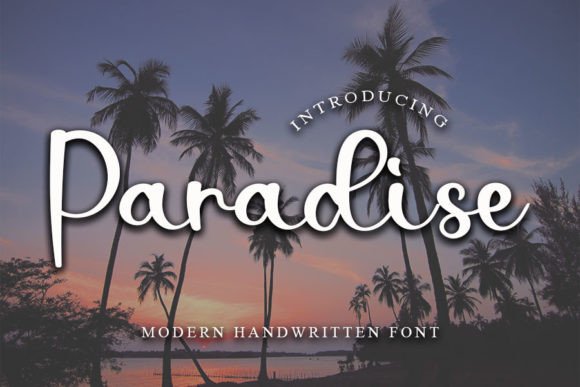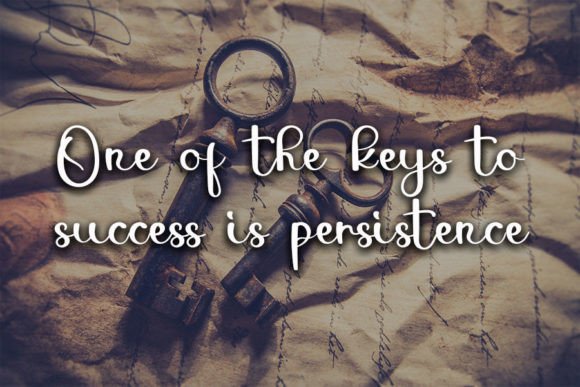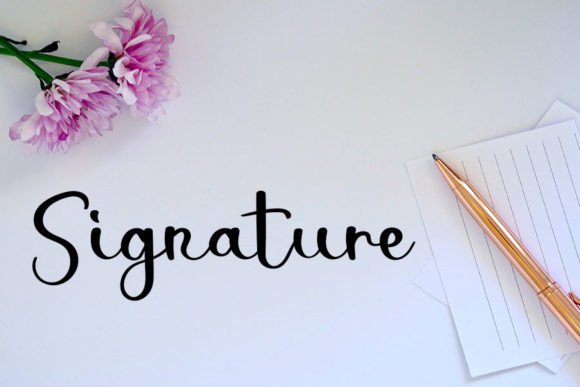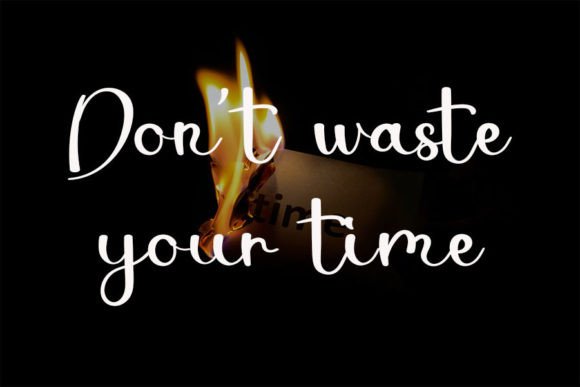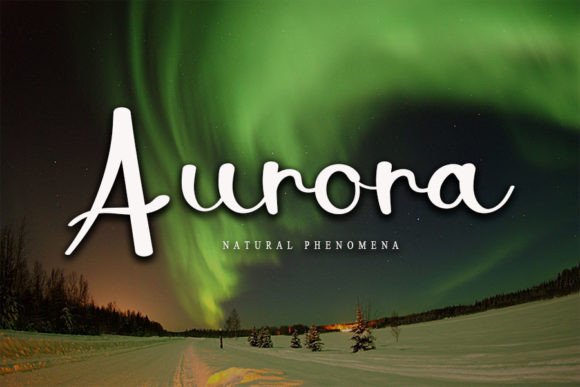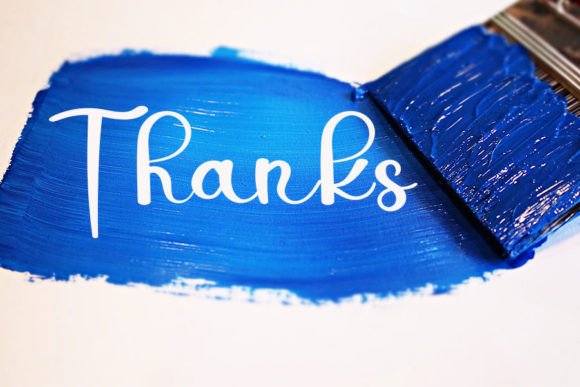
Paradise Font
About Paradise Font
“Paradise” is a colorful handwritten font that combines elegance with a touch of playfulness. This font is an excellent choice for various design projects, including logos, branding, social media posts, and crafty DIY endeavors. Its clean and slightly quirky design adds a unique and eye-catching quality to your creative work.
One of the standout features of “Paradise” is its ability to convey both elegance and a sense of personality. The handwritten style of the font adds a personal and authentic feel to your text, making it ideal for projects that aim to create a visually appealing and approachable impression.
This font’s versatility allows it to be applied to a wide range of design contexts. “Paradise” can be used to create memorable logos and branding materials, add character to your social media posts and captions, and infuse a creative and crafty vibe into DIY projects.
Visualize using “Paradise” for your brand’s logo and how it communicates a sense of elegance and approachability to your audience. Imagine incorporating this font into your social media posts, making your content more engaging and visually appealing. When you choose “Paradise” for your projects, you’re selecting a font that adds a touch of elegance and creativity to your designs.
In conclusion, “Paradise” is more than just a font; it’s a design asset that brings a sense of elegance and playfulness to your creative projects. Its handwritten style and colorful design make it an ideal choice for a wide range of applications, allowing you to create visually appealing and engaging content. Embrace “Paradise” as a font that adds a touch of personality and creativity to your work, making it stand out and leave a lasting impression.